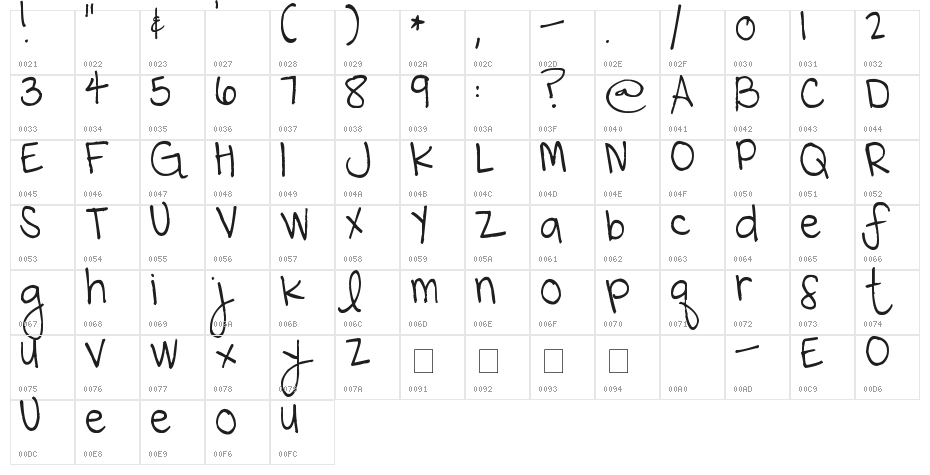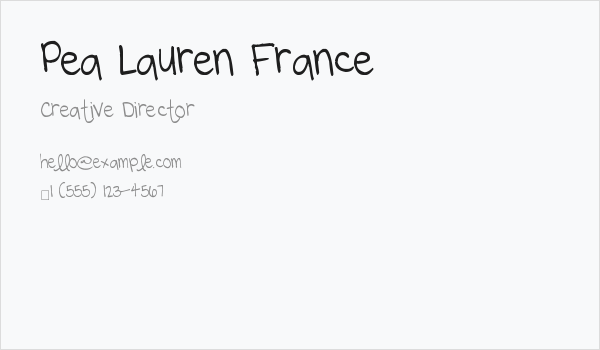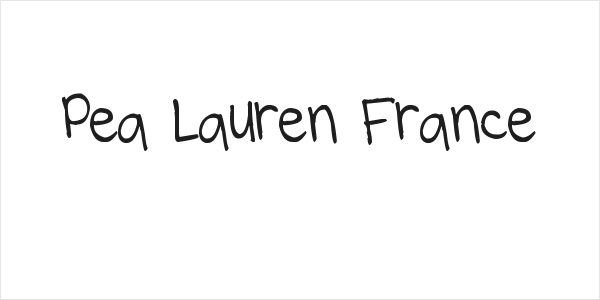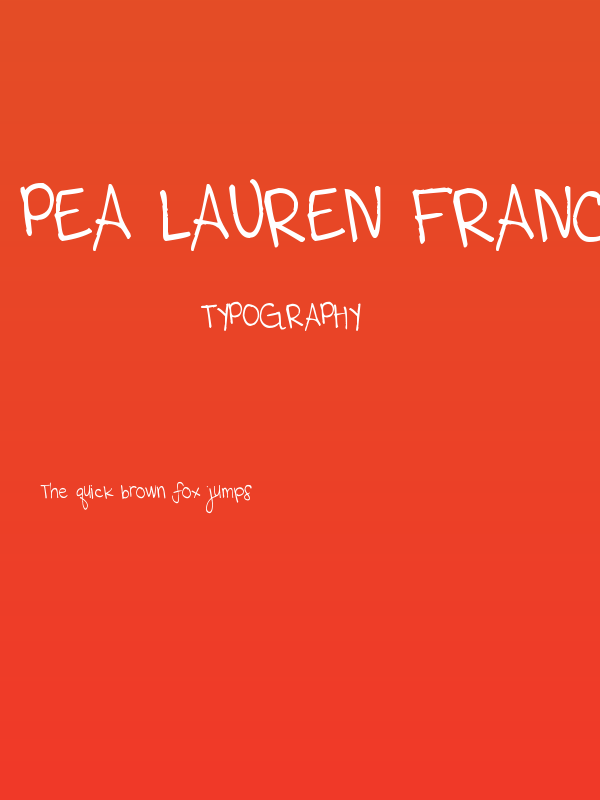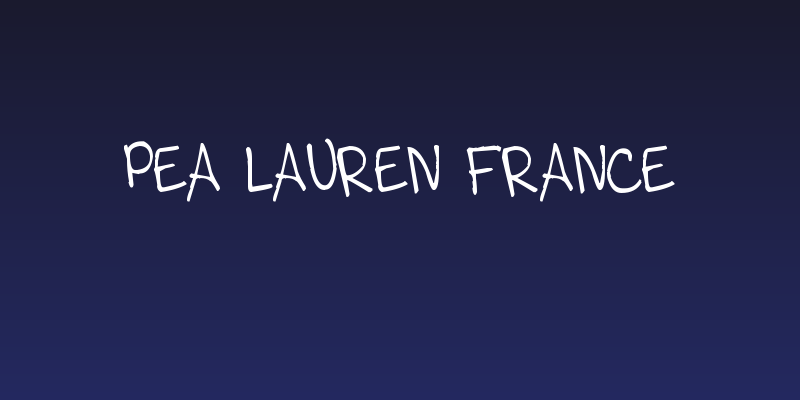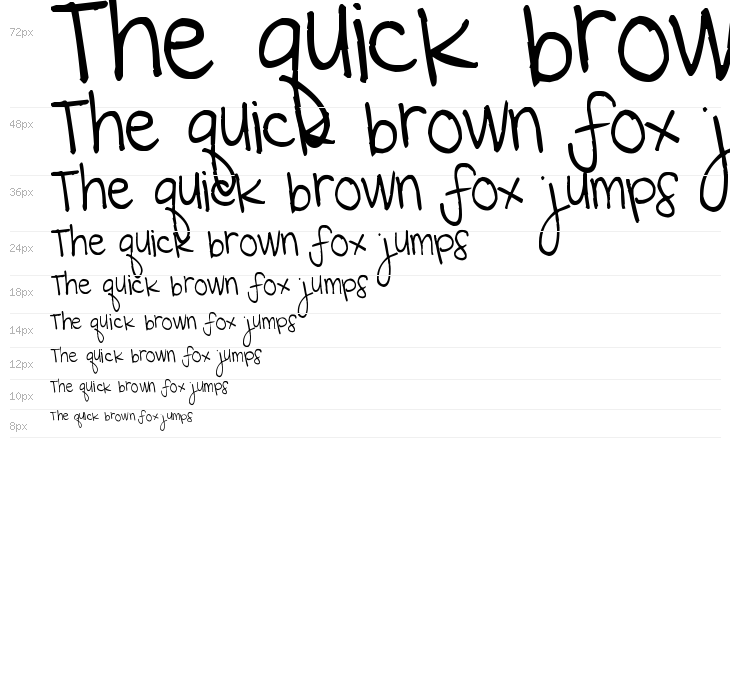
Pea Lauren France Font
Pea Lauren France Description
This font features a playful and casual handwritten style, characterized by its irregular strokes and slightly uneven baseline. The letters are bold and have a lively, energetic feel, making them stand out with a personal touch. The uppercase and lowercase letters maintain a consistent style, with rounded edges and a slight slant that adds to the informal aesthetic. Numbers and special characters are crafted with the same whimsical approach, ensuring a cohesive look throughout. This font is perfect for projects that require a friendly and approachable vibe, such as personal notes, invitations, or creative branding.